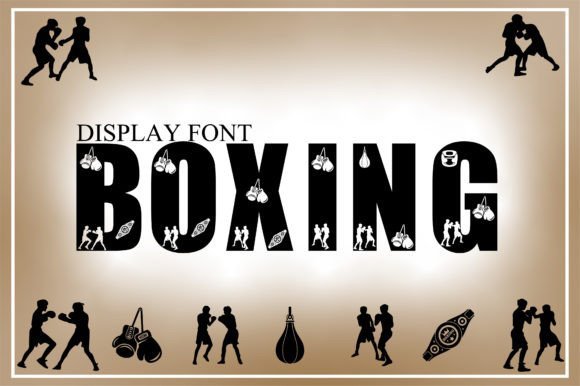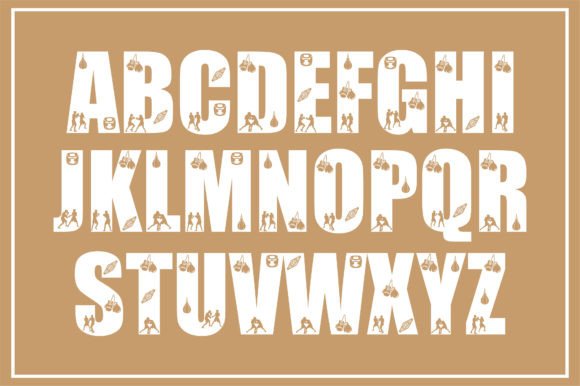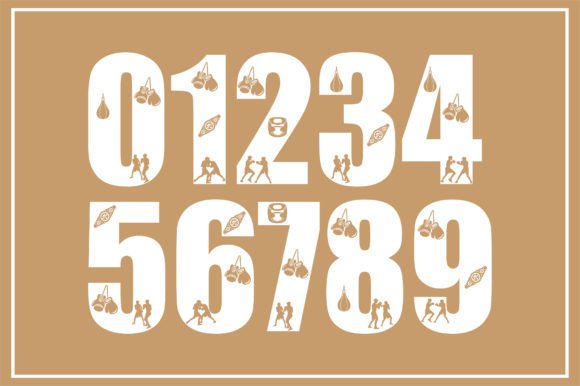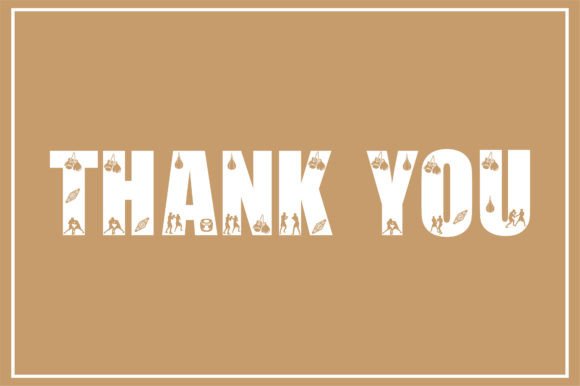
Unleashing Creativity with the Boxing Font
Do you remember the excitement of discovering a new font that perfectly captures the essence of your creative vision? It’s like stumbling upon a hidden treasure that makes all the difference in your design. For many designers, this moment of discovery is what drives their passion for creating something truly unique and captivating.
One such font that has been making waves in the design community is the Boxing Font. This cool and original-looking decorative font is perfect for adding a touch of joy to your designs. Whether you’re working on cartoon-related projects, children’s games, or simply need a font that exudes happiness, the Boxing Font is an excellent choice. Its versatility and playfulness make it a valuable addition to any designer’s toolkit.
Boxing Font Key Features
- Font Style: Boxing Font is a sans-serif font with a distinctive, bold appearance, often used for headlines and titles.
- Unique Characteristics: Features a distinctive, boxy shape with sharp angles, making it highly legible even at small font sizes.
- Font Weight: Available in light, regular, and bold weights to accommodate various design needs.
Boxing Font Review
Overall, I think the Boxing Font has some great qualities, but also a few areas where it falls short. Let’s start with what works well: ✨ The font’s bold and energetic feel makes it perfect for headings and titles. The unique design elements add a touch of personality to any design. ✨ The font is also highly legible, making it easy to read even at smaller font sizes.
- ✨ Great for headings and titles due to its bold and energetic feel
- ✨ Highly legible even at smaller font sizes
- Unique design elements add personality to any design
However, there are a few limitations to consider: ⚠️ The font’s irregularities can make it difficult to use for body text, as it can be hard to read for extended periods. ⚠️ The font may not be suitable for designs that require a more subtle or professional tone. ⚠️ The font is also quite heavy, so it may not be the best choice for designs where a lighter font is needed.
- ⚠️ Difficult to use for body text due to irregularities
- ⚠️ May not be suitable for designs requiring a subtle or professional tone
- ⚠️ Heavy and may not be suitable for lighter designs
Overall, I think the Boxing Font is a great choice for designers who want to add a bold and energetic touch to their designs. However, it may not be the best choice for every project, and designers should carefully consider its limitations before using it.
The Boxing Font is a versatile font that can be used for a variety of purposes, including:
- Creating bold and eye-catching headlines.
- Adding a touch of retro or vintage flair to your designs.
- Using as a background font for text overlays or quotes.
Remember to experiment with different font sizes, colors, and alignments to get the most out of the Boxing Font.